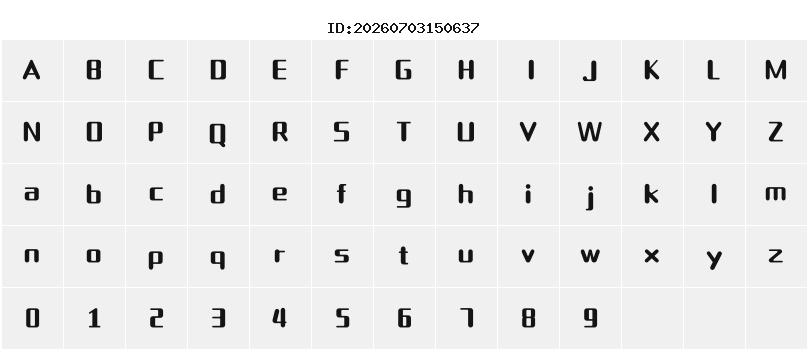
042-上首芋圆体 Preview
• Font Name: 042-上首芋圆体
• Font ID: 042-SSYuYuanTi:Version 6.00
• Full Font Name: 042-上首芋圆体
• Version: Version 6.00 December 25, 2023
• PostScript Name: 042-SSYuYuanTi
• Character Count: 7569
• Manufacturer: 上首造字
About 042-上首芋圆体.ttf
042-上首芋圆体.ttf is a modern, elegant sans-serif font designed for ultimate readability and visual harmony. Perfect for branding, headlines, web design, and print materials.